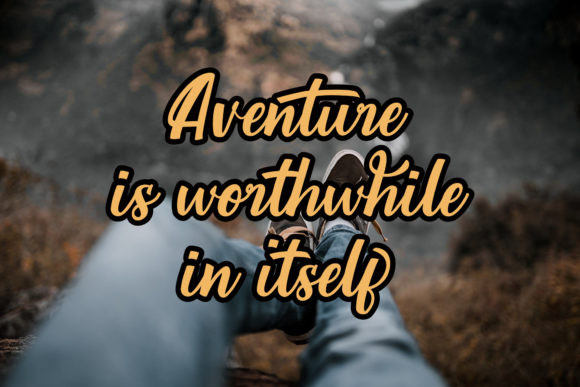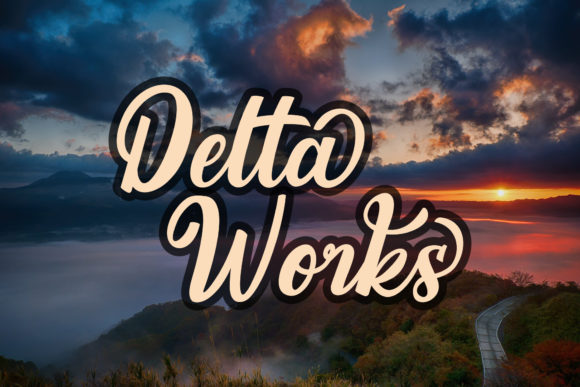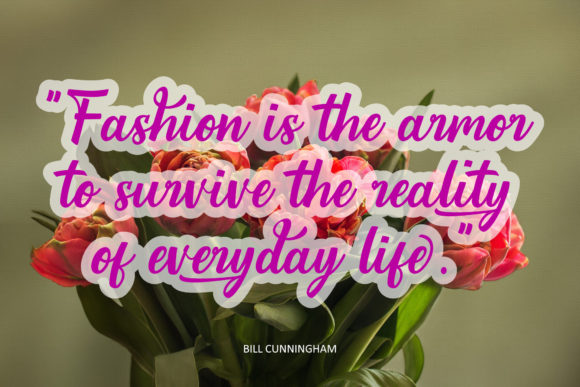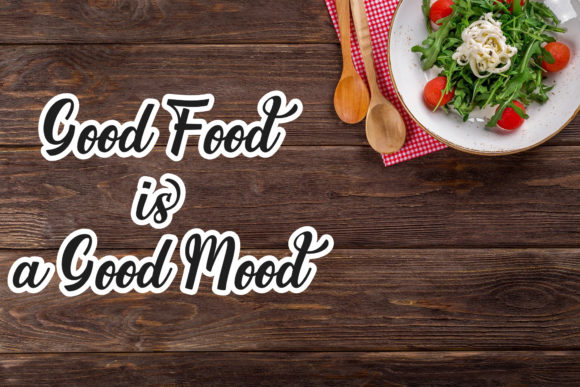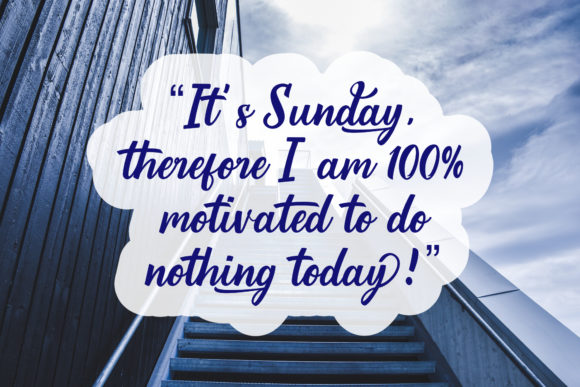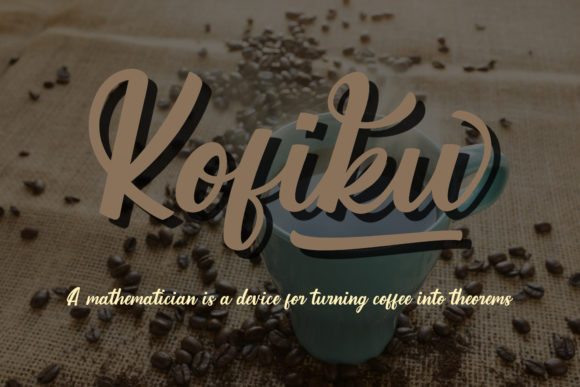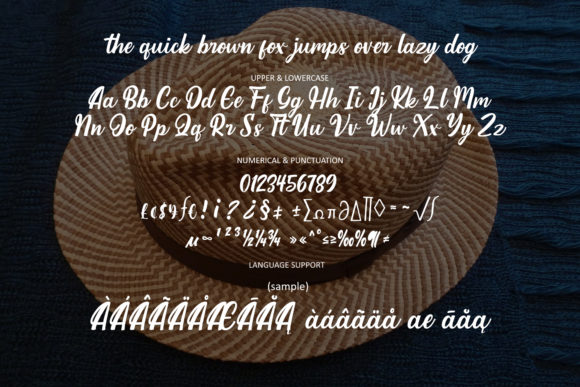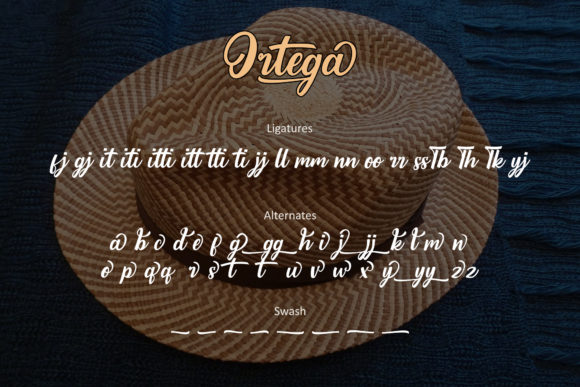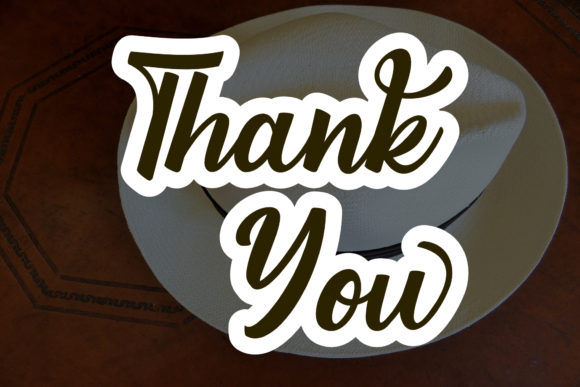
Ortega Font
About Ortega Font
Ortega is a charming and approachable handwritten font that adds a delightful touch to a wide variety of designs. With its natural and unique style, this font is a versatile choice that allows you to explore endless creative possibilities.
Its friendly and inviting appearance makes Ortega perfect for a diverse range of projects. Whether you’re working on greeting cards, logos, social media posts, invitations, branding, or any other design, Ortega brings a warm and personal feel to your work.
The font’s PUA encoding enables easy access to all of its special glyphs and swashes, allowing you to add decorative elements and flourishes effortlessly. This feature empowers you to customize your designs with flair and create truly unique and eye-catching compositions.
Ortega’s handwritten look adds a touch of authenticity and warmth to your projects. Its natural flow and varied letterforms make it feel like it was carefully crafted by hand. Whether you’re aiming for a casual, playful vibe or a more elegant and sophisticated appeal, Ortega adapts seamlessly to your design intentions.
No matter the theme or topic of your project, Ortega will be a valuable asset to your font library. Embrace its friendly charm and let your imagination run wild as you bring your creative ideas to life with this delightful handwritten font.